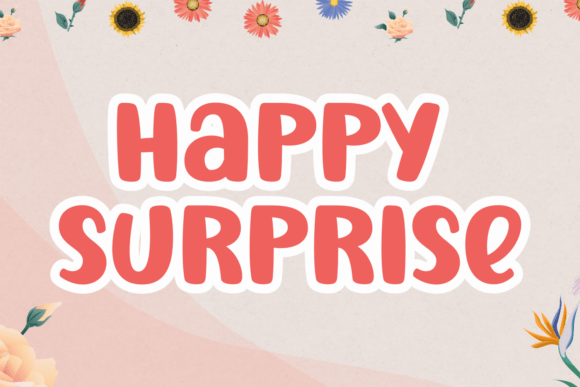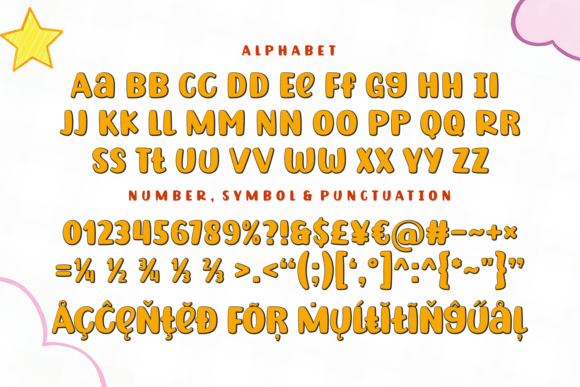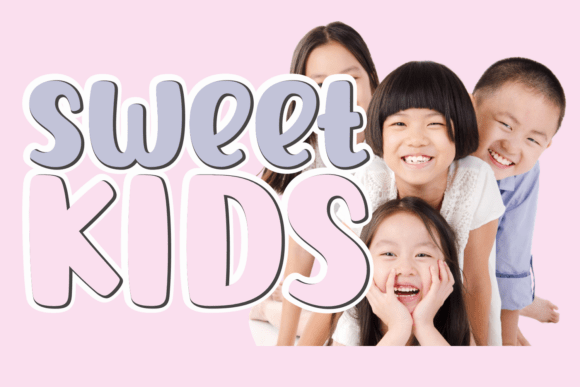
Discover the Charm of Cute Calm: A Bold and Whimsical Display Font
Are you tired of using the same old fonts for your creative projects? Look no further than Cute Calm, a bold and whimsical display font that’s sure to captivate your audience with its unique and authentic charm. This font is characterized by its rounded and ultra-smooth texture, making it an excellent choice for a variety of creative projects, from t-shirt designs to magazine covers.
The Carefree Vibe of Cute Calm
Cute Calm has a carefree vibe that offers a vintage feel, perfect for adding a touch of nostalgia to your designs. Its playful and whimsical nature makes it ideal for sprucing up your greeting card, t-shirt, and magazine cover designs. But Cute Calm isn’t just limited to cards and covers; its versatility makes it an excellent choice for enhancing book layouts, product packaging, and more.
Endless Design Possibilities with Cute Calm
With Cute Calm, the design possibilities are endless. Use it to create striking logos, eye-catching apparel, and beautifully crafted quotes. This font is perfect for designers and crafters who want to add a personal touch to their work. Whether you’re aiming for a clean, hand-drawn look or a fancy, playful vibe, Cute Calm has got you covered.
Multilingual Support for Global Designers
Cute Calm also offers multilingual support, making it an all-encompassing design choice for global designers. With this font, you can create designs that cater to diverse audiences and languages, expanding your reach and creative possibilities.
Why Choose Cute Calm?
So, why choose Cute Calm over other fonts? Here are just a few reasons:
- Unique and authentic charm: Cute Calm has a distinctive character that sets it apart from other fonts.
- Rounded and ultra-smooth texture: The font’s texture is smooth and inviting, making it perfect for designs that require a personal touch.
- Carefree vibe: Cute Calm’s playful nature makes it ideal for adding a touch of whimsy to your designs.
- Versatility: This font can be used for a wide range of creative projects, from cards and covers to book layouts and product packaging.
- Multilingual support: Cute Calm supports multiple languages, making it a great choice for global designers.
Tips for Using Cute Calm in Your Designs
Here are some tips for using Cute Calm in your designs:
- Pair it with complementary fonts: Cute Calm works well with other fonts, so don’t be afraid to experiment with different combinations.
- Use it for headlines and titles: The font’s bold and whimsical nature makes it perfect for headlines and titles.
- Add a personal touch: Cute Calm is perfect for designs that require a personal touch, such as greeting cards and invitations.
- Experiment with colors: The font’s smooth texture looks great in a variety of colors, so don’t be afraid to experiment.
In conclusion, Cute Calm is a bold and whimsical display font that’s sure to captivate your audience with its unique and authentic charm. Its carefree vibe, versatility, and multilingual support make it an excellent choice for a wide range of creative projects. Whether you’re a designer or crafter, Cute Calm is sure to raise the bar for your designs. So why wait? Discover the charm of Cute Calm today and take your designs to the next level!